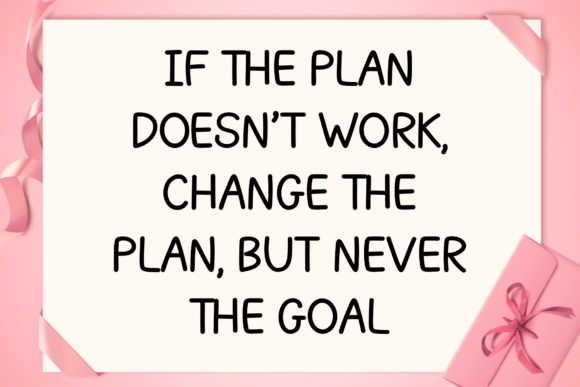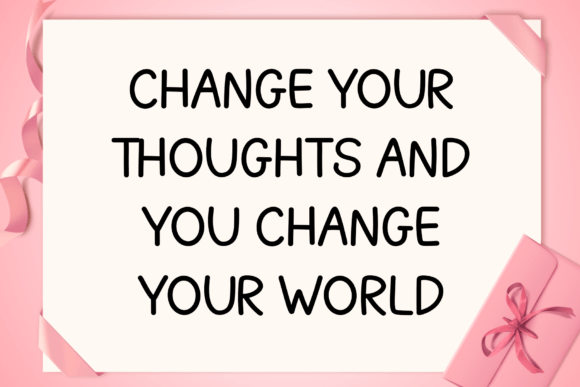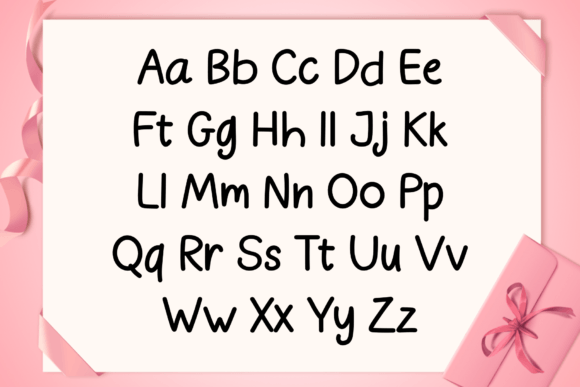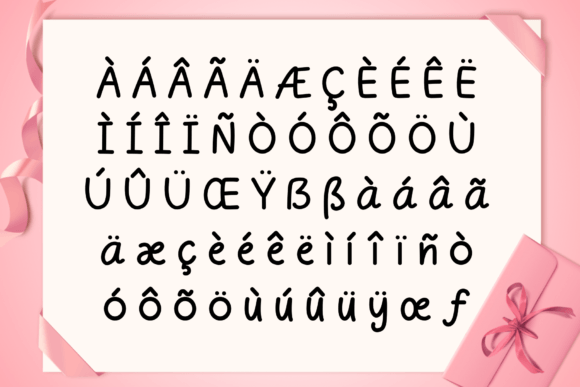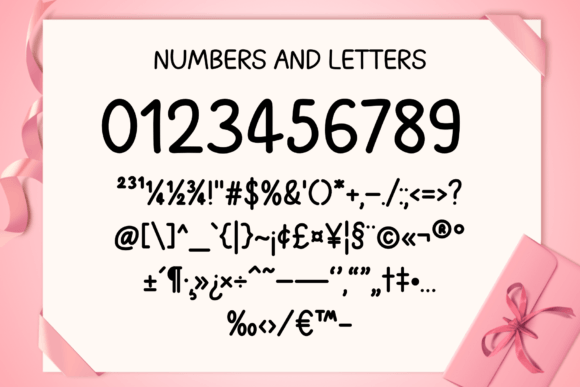
Bring Your Designs to Life with the Timeless Charm of Goodnote Font
As a designer, there’s nothing quite like the thrill of brainstorming a new project – the blank page, the endless possibilities, the rush of creativity. And for those moments when you need to capture the essence of your idea in a single, striking element, that’s where the Goodnote Font comes in.
This beautiful, handwritten font is the perfect choice for creating eye-catching logos, branding, and quotes that truly stand out. With its unique and beautiful touch, every letter is a work of art, imbuing your design with a sense of character and personality. For designers, Goodnote Font is a valuable tool for adding a touch of warmth and sophistication to their work, elevating their creations to new heights.
Goodnote Font Key Features
- Unique Characteristics: The Goodnote Font is designed for digital handwriting and note-taking, offering a natural and cursive feel that mimics traditional handwriting.
Goodnote Font Review
As a designer, I was excited to dive into the Goodnote Font, and I’m happy to share my honest thoughts. Overall, I was impressed by this elegant script font.
- Legibility**: Goodnote Font is incredibly easy to read, even in smaller font sizes.
- Expressive Touch**: This script font has a beautiful, handwritten feel that’s perfect for adding a touch of personality to your designs.
- Comprehensive Character Set**: Goodnote Font includes a wide range of characters, including Latin, Greek, and Cyrillic scripts.
- Weight Limitations**: While Goodnote Font comes in several weights, the lightest weights can be a bit too light for some designs.
- Lack of Italic**: Unfortunately, this font doesn’t include an italic version, which can be a limitation for certain design projects.
Overall, I’m a big fan of Goodnote Font. While it has some limitations, its unique style and high legibility make it a great choice for designers looking to add a touch of elegance to their work.
Alternatives to Goodnote Font for Designers
Montserrat is a popular sans-serif font designed by Julieta Ulanovsky. It’s ideal for use in digital interfaces, logos, and headings. Montserrat is a more modern and sleek alternative to Goodnote Font, with a focus on legibility and versatility.
Comparison: Montserrat has a more geometric and clean design compared to Goodnote Font’s elegant and classic look.
Open Sans is a clean and modern sans-serif font designed by Steve Matteson. It’s suitable for use in digital interfaces, body text, and headings. Open Sans is a more straightforward alternative to Goodnote Font, with a focus on readability and simplicity.
Comparison: Open Sans has a more neutral and minimalistic design compared to Goodnote Font’s distinctive and elegant style.
Merriweather is a classic serif font designed by Eben Sorkin. It’s ideal for use in print materials, such as books and magazines, as well as digital interfaces and headings. Merriweather is a more traditional and elegant alternative to Goodnote Font, with a focus on readability and sophistication.